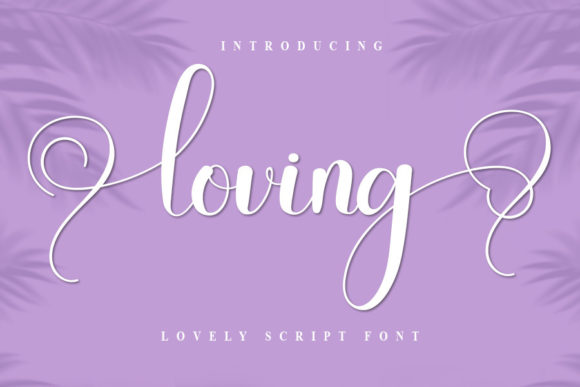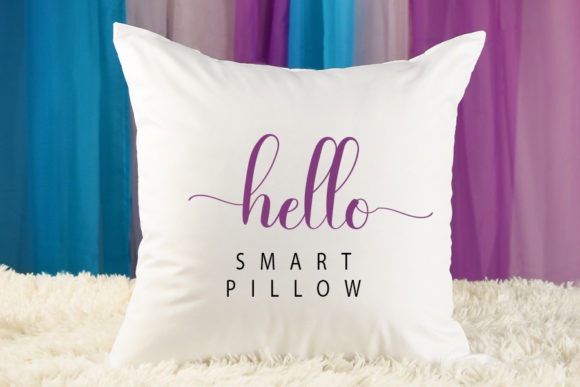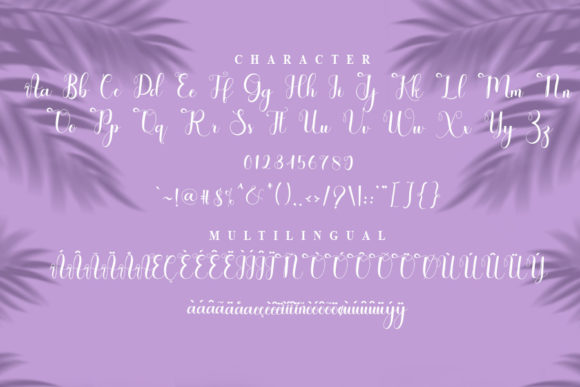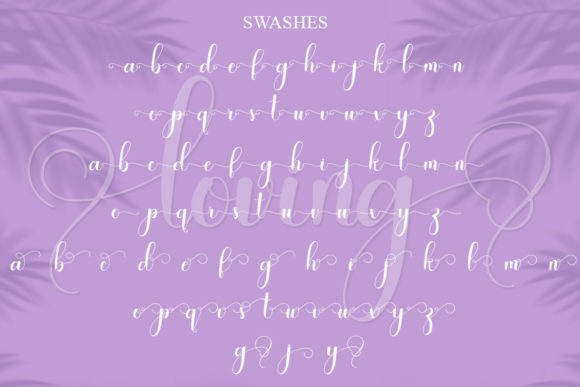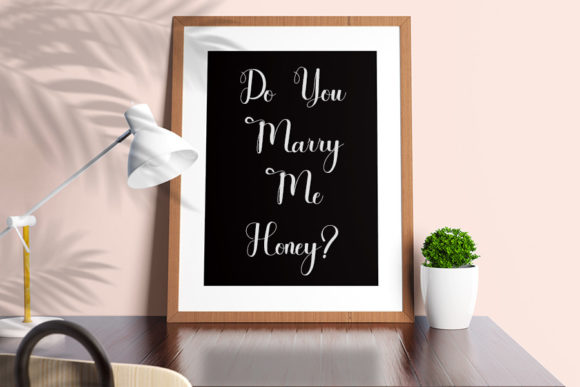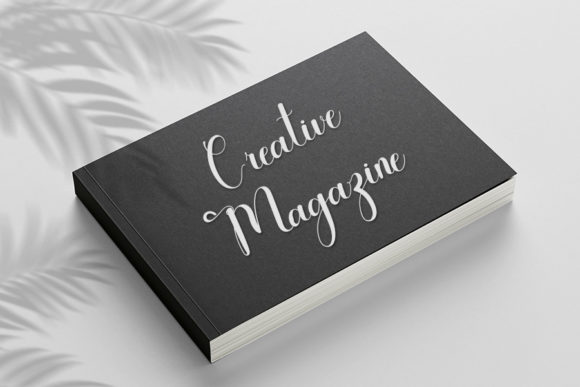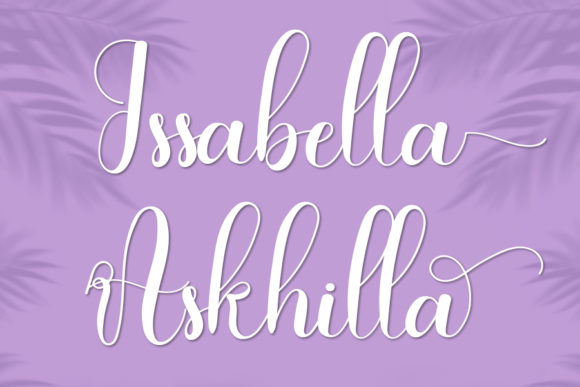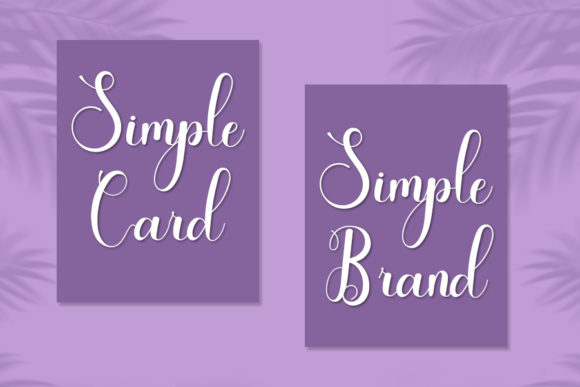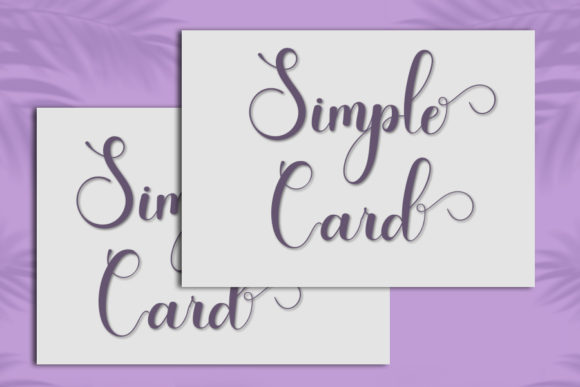
Loving Font
About Loving Font
Loving is a beautiful and refined script font that exudes a classy, elegant, and modern aesthetic. With its sophisticated appearance, this font is a versatile choice suitable for a wide range of design applications, including logos, branding, invitations, stationery, wedding designs, social media posts, and more.
The font’s design reflects a harmonious blend of classic elegance and contemporary style. Its refined script features convey a sense of sophistication, making it an ideal option for projects that demand a touch of class and modernity. Whether applied to digital or print materials, Loving adds a timeless charm that enhances the overall visual appeal.
A distinctive feature of Loving is its PUA encoding, allowing easy access to a rich set of glyphs and ligatures. This feature facilitates seamless integration into design projects, providing designers with a diverse range of creative possibilities. The availability of these additional elements further enhances the font’s versatility, making it suitable for customization and personalization.
Whether you’re creating a logo that demands a refined touch, designing invitations for an elegant event, or crafting engaging social media posts, Loving proves to be a valuable asset. Its well-crafted script and modern aesthetic contribute to a polished and sophisticated look, ensuring that your designs stand out with a touch of timeless elegance.
In summary, Loving is more than just a font; it’s a tool that brings a beautiful and refined script to your creative projects. With a classy, elegant, and modern look, it is well-suited for logos, branding, invitations, stationery, wedding designs, social media posts, and beyond. The inclusion of PUA encoding adds an extra layer of accessibility, allowing you to access all of the amazing glyphs and ligatures with ease, making it a versatile and user-friendly choice for designers seeking both style and functionality.